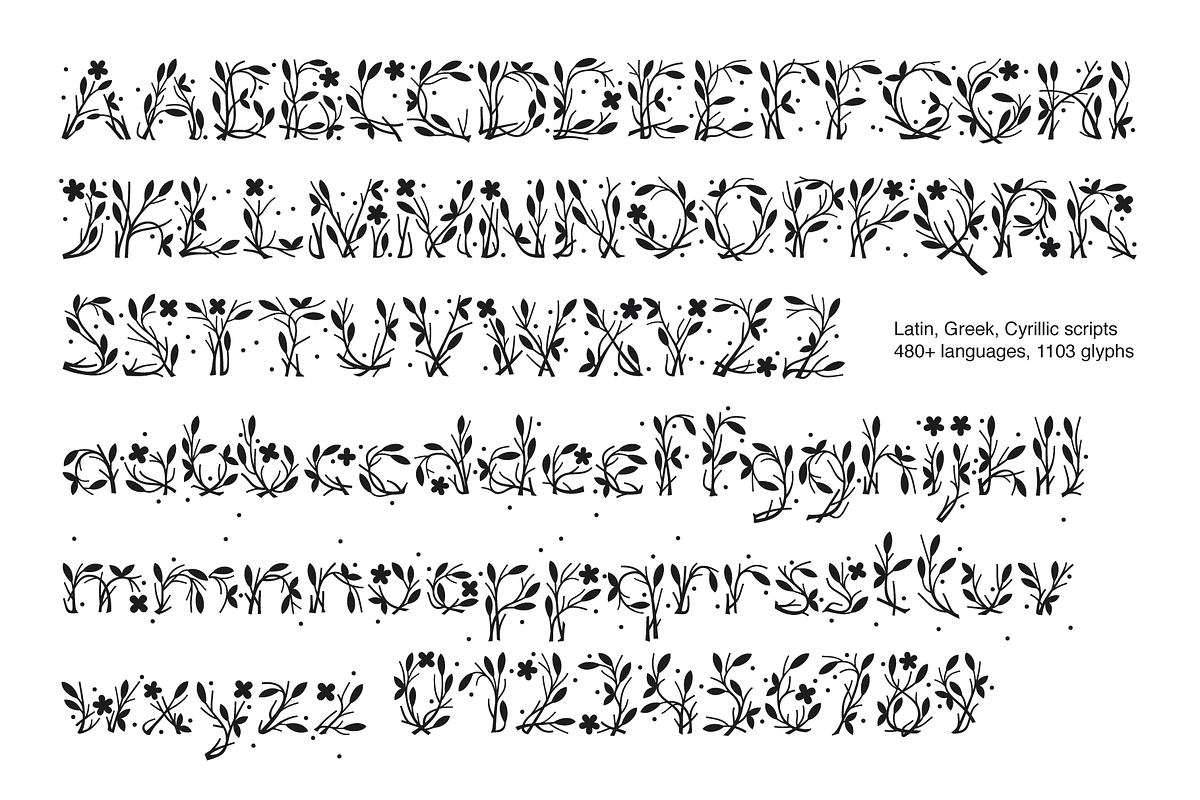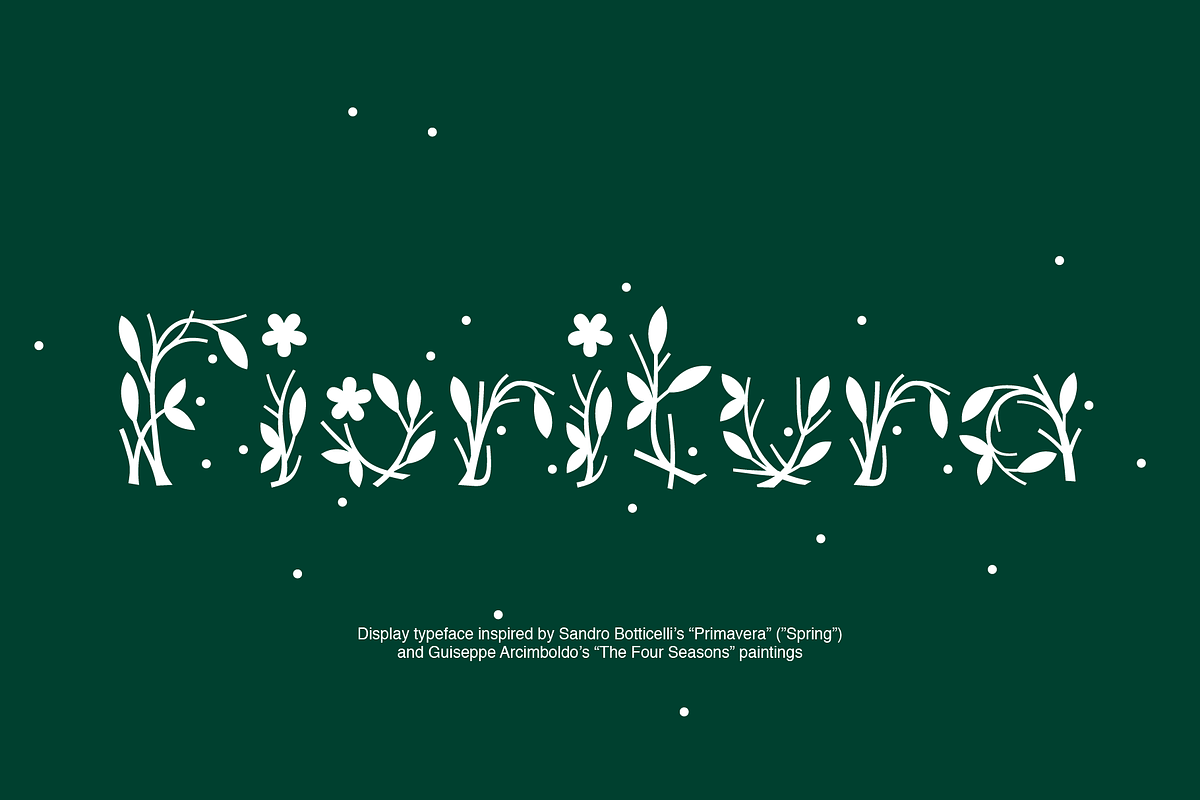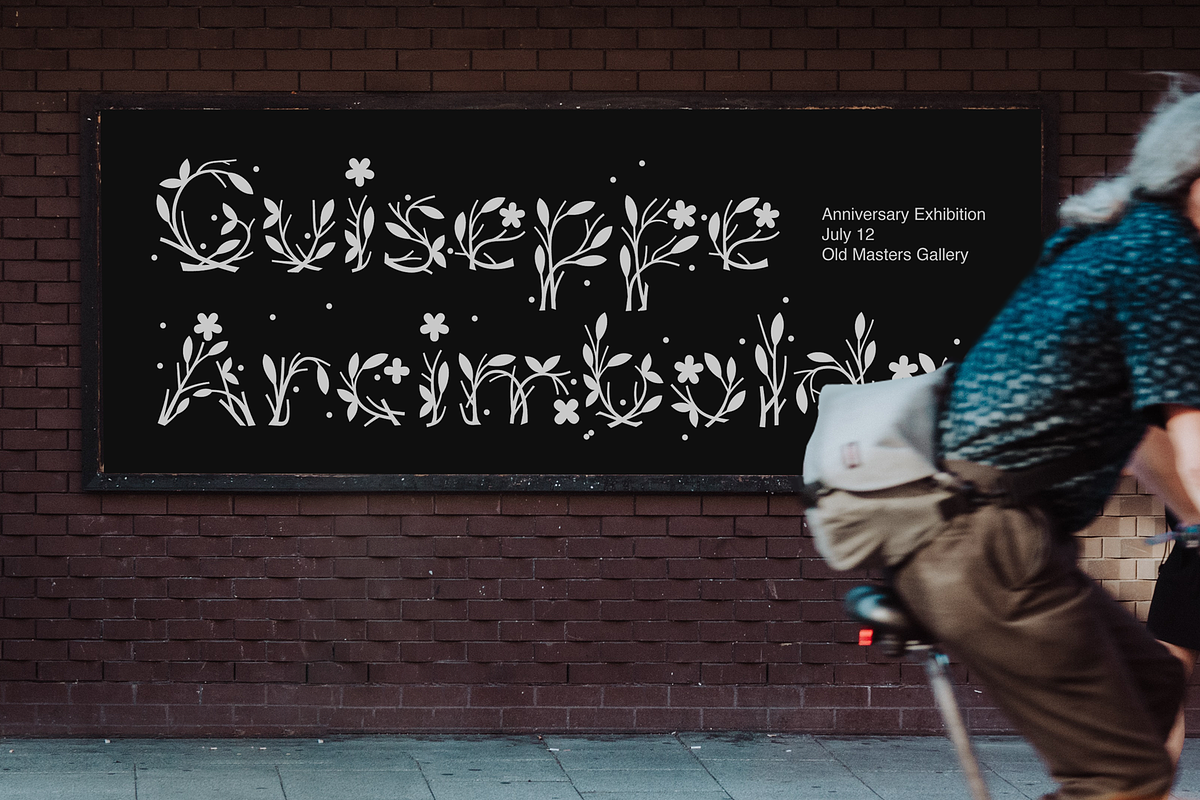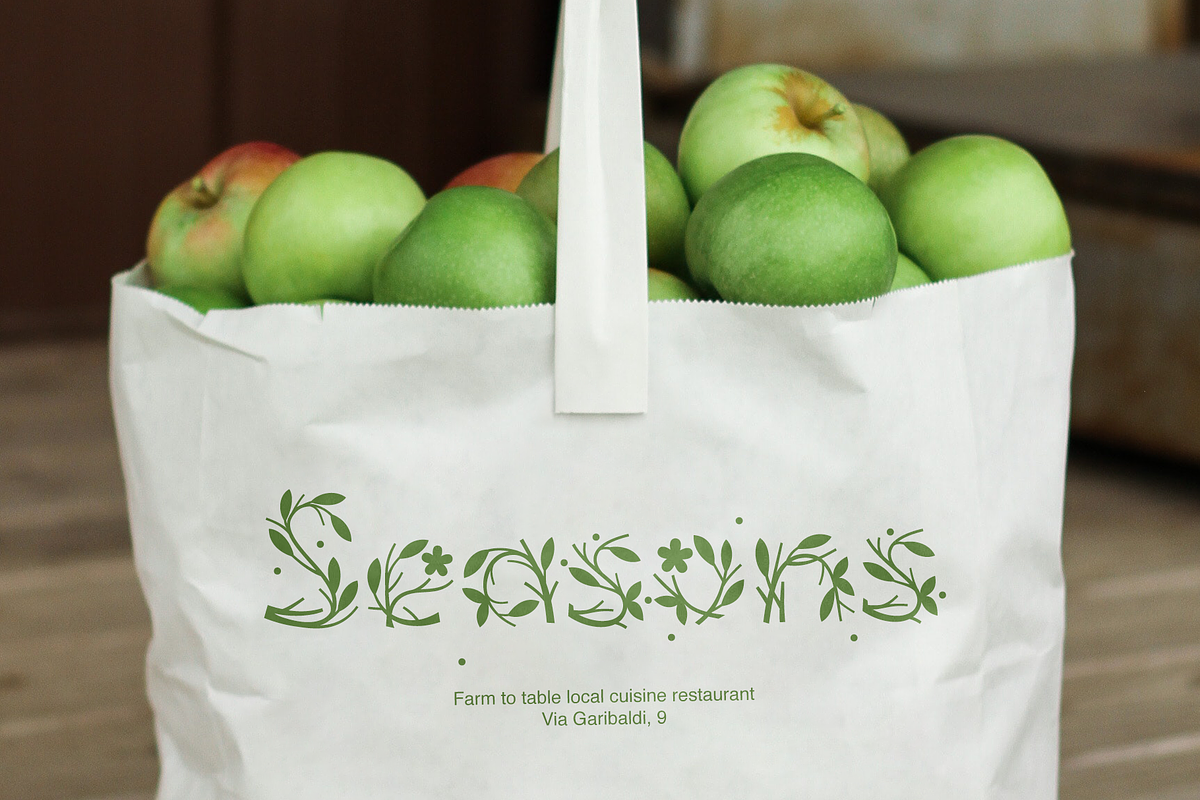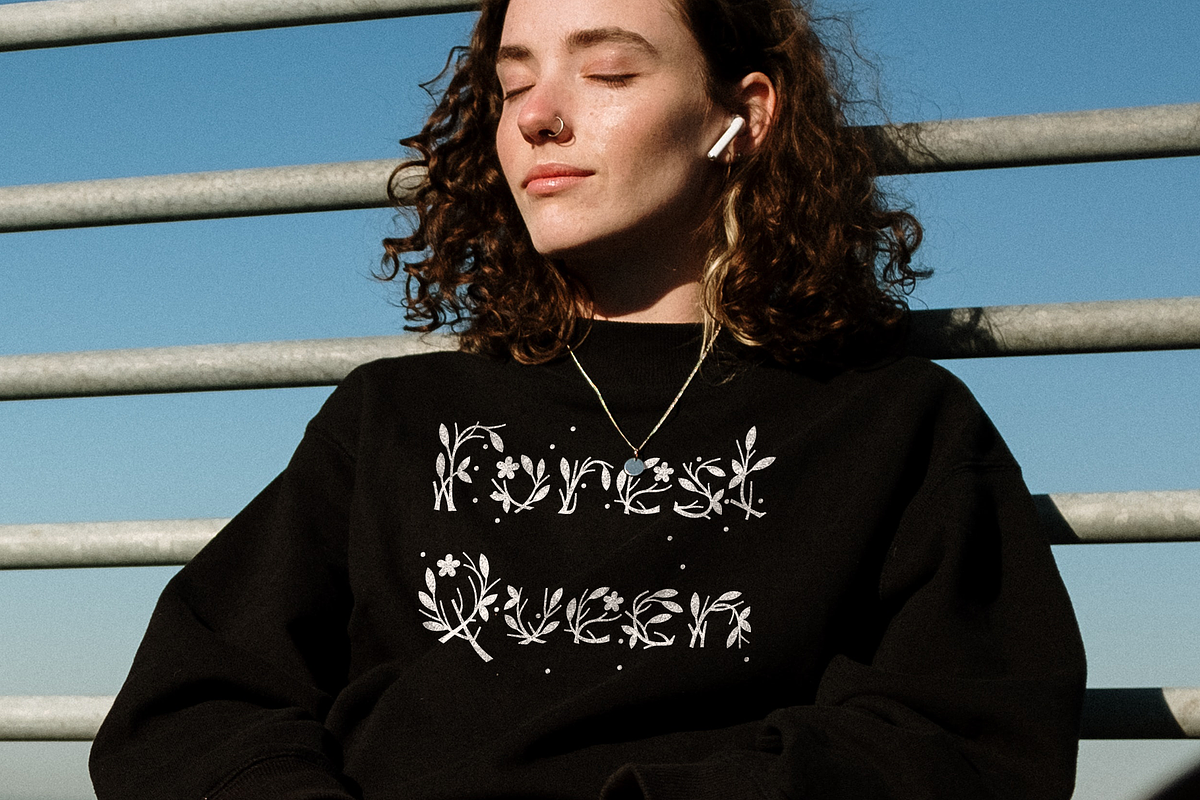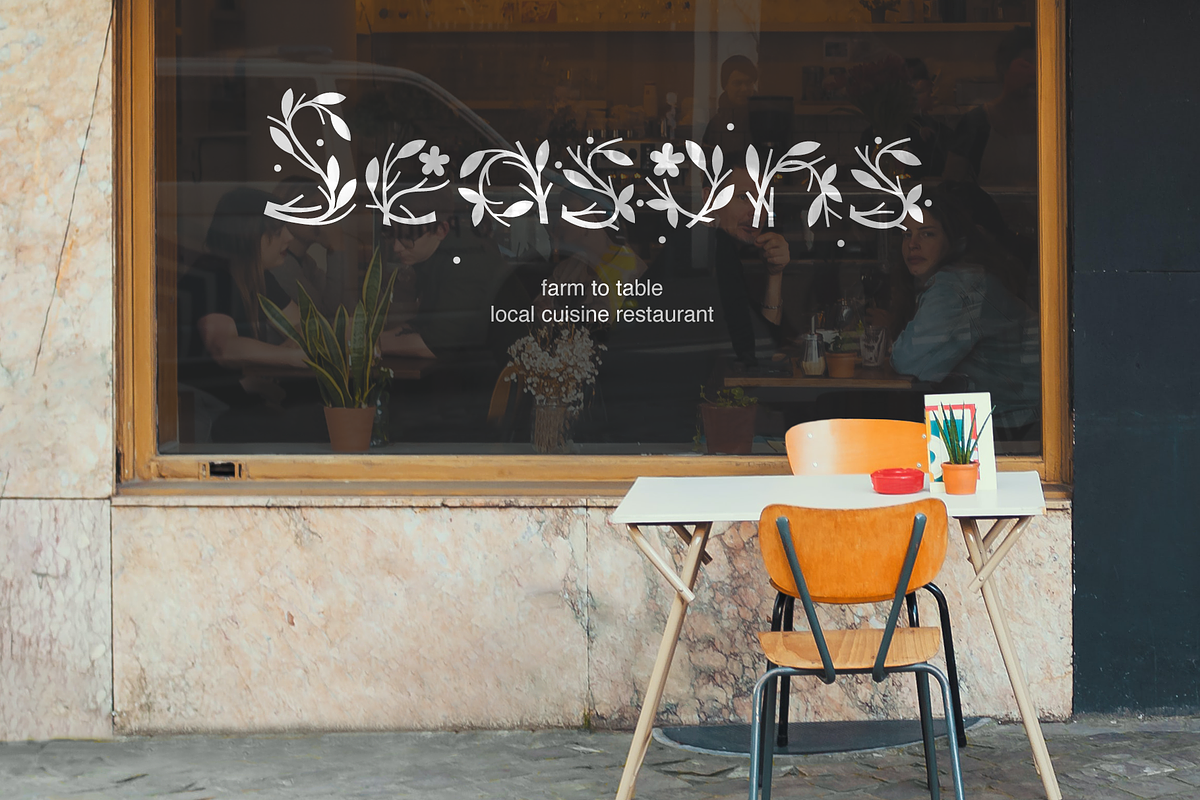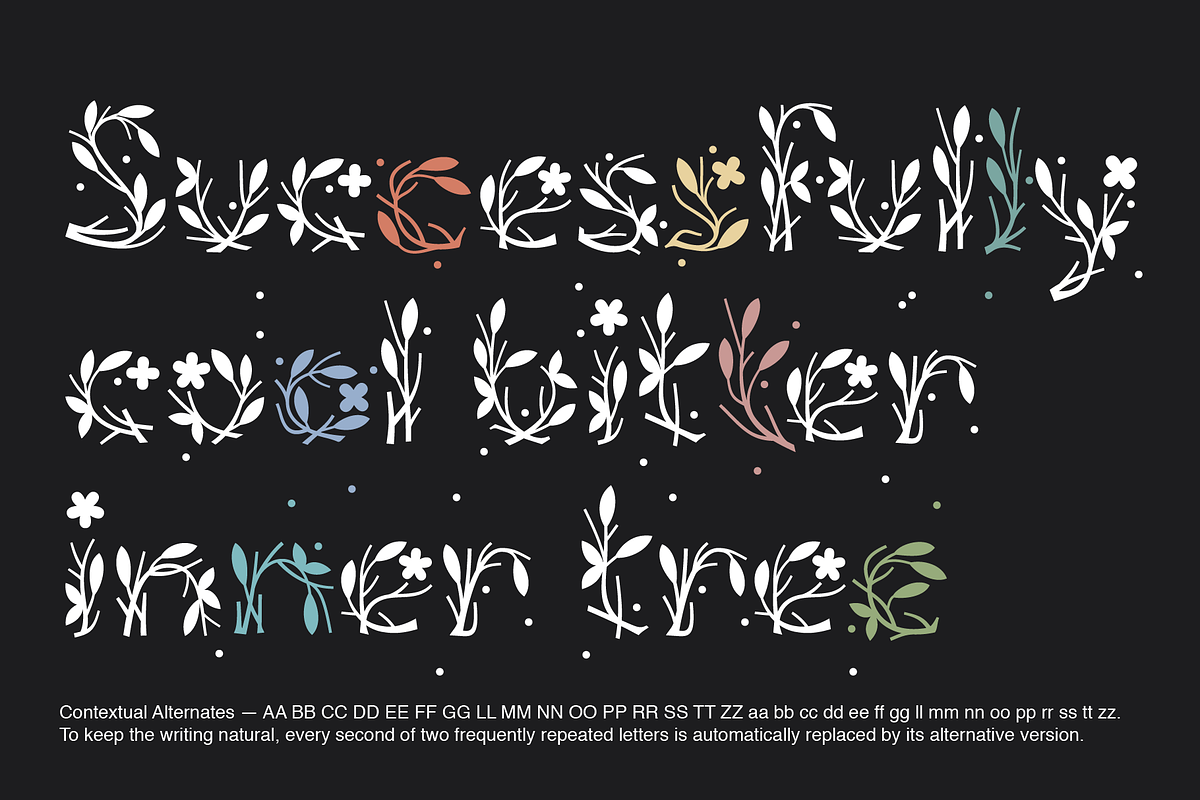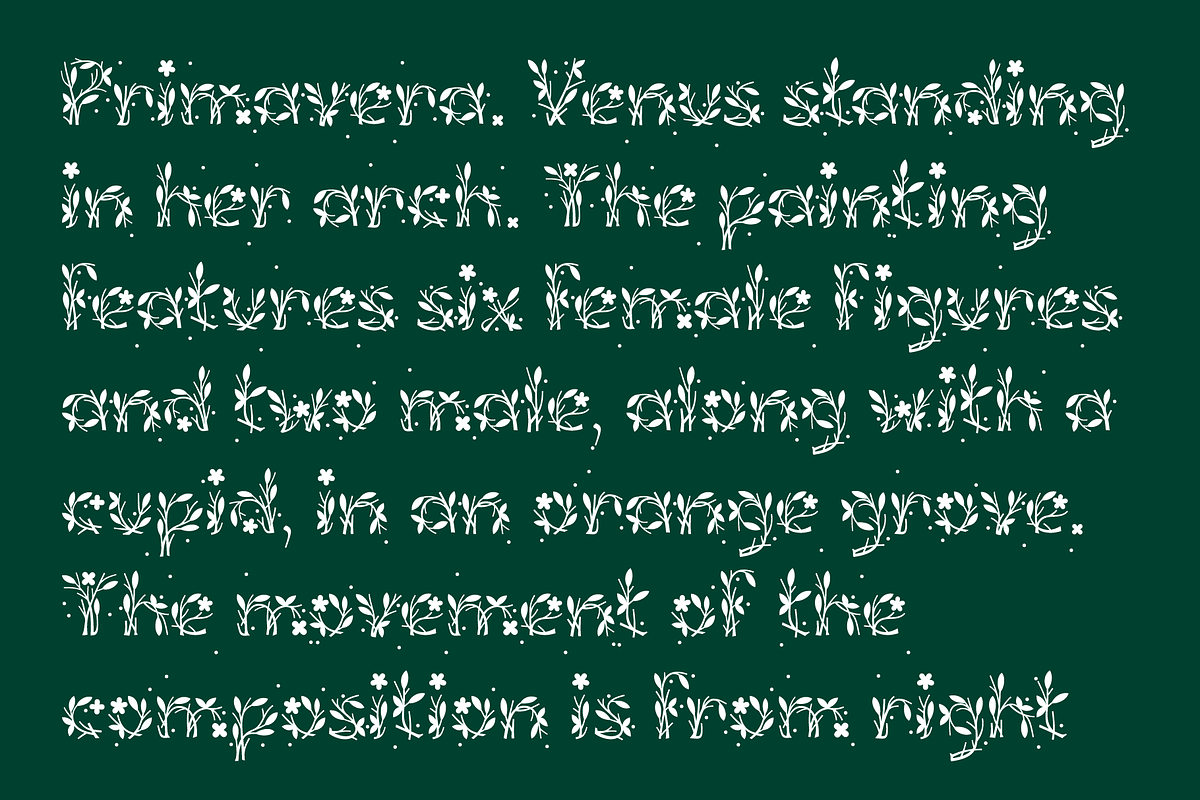
Fioritura font
Fioritura is a floral display typeface inspired by Sandro Botticelli's "Primavera" ("Spring") and Guiseppe Arcimboldo's "The Four Seasons" paintings. Fioritura means flowering in Italian, and the character composition consists of stems, leaves, flowers, and flying pollen.
Scripts: Latin, Greek, Cyrillic.
Language count: 480+.
Glyph count: 1103.
Contextual Alternates: AA BB CC DD EE FF GG LL MM NN OO PP RR SS TT ZZ aa bb cc dd ee ff gg ll mm nn oo pp rr ss tt zz. To keep the writing natural, every second of two frequently repeated letters is automatically replaced by its alternative version. Turned on by default.
Contextual Alternates: ΆΈΉΊΌΎΏ. Greek uppercase accented characters lose their tonos accent and retain only dieresis in All Caps mode. Turned on by default. If you need tonos accents in All Caps then turn off Contextual Alternates (calt) feature.
Stylistic Alternates: ABCDEFGLMNOPRSTZ abcdefglmnoprstz.